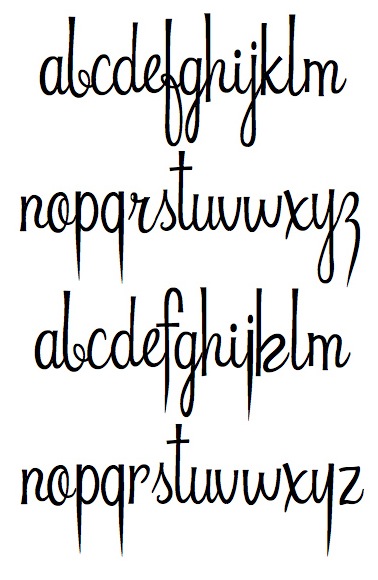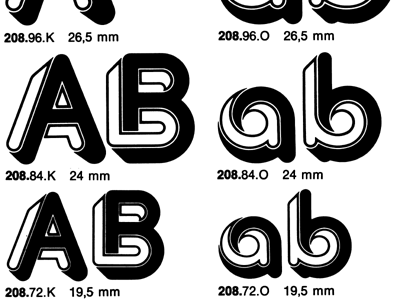
Type designers
Dries 007
Belgian creator of the free counterless constructivist typeface Semi-Russian (2012). [Google] [More]  ⦿
Miloš Ćirić
Serbian book illustrator, graphic arts teacher and phototype, woodtype and linocut letter type designer, b. Despotovo, 1931, d. Belgrade, 1999. His sons Rastko and Vukan write about both aspects of his life. His CV: he graduated in 1954 from the Academy of Applied Arts, Belgrade and took his Masters Degree in 1959, under Professor Mihailo S. Petrov. He was professor at the Faculty of Applied Arts, University of Arts, Belgrade from 1964 until 1997. He was Head of the Graphic Department from 1974 to 1975. His publications include Graphic identification 1961-1981 (SKZ, Belgrade, 1982), Graphic communications 1954-1984 (Vajat, Belgrade, 1986), Heraldry 1 (University of Arts, Belgrade, 1983) and Coat-of-Arms of Belgrade, Heraldry 2 (Cicero, Belgrade, 1991). Most of Ćirić's types were for Cyrillic, while some have Latin alphabets as well. Many would be classified today as poster types, type to accompany illustrations. The list of his faces:
• Rastko, Latin, 1955: It is a versal typeface made in only one weight. Rastko himself thinks it was devised as light, almost linear and it was a part of his character.
• Vukan, Latin, 1960: Named after his second son, Vukan, this is a sharply cut orthogonal typeface.
• Galerija Grafiki kolektiv, Cyrillic, 1962 (Graphic Collective Gallery): A beautiful Cyrillic display face. This was the first of his typefaces transformed in a computer font.
• Triptihon, Cyrillic, 1962 (Triptych): Another cut face, but this time really taken from the sample made in linocut. The prototypical cyrillic poster face.
• Akademija, Cyrillic, 1966 (Academy): This face was made for the University and Academy where he worked. It was designed so that it can be used equally well on the paper, metal plates, seals, plaques and everything else Academy needed. He used similar faces on book covers and charters, in solemn situations. Rastko: Although one may think it is an ordinary serif face, it contains Cira's specific typographic handwriting. The shapes are almost geometrically reduced thus providing a decorative effect, legibility and possibility to be transferred in all materials..
• Bolsko, Latin, 1966/67/68: Bol is a small place on the island Brač. This simple condensed headline face was designed for pedagogical purposes made to be used for lectures at the Faculty of Applied Arts abd in its graphic identity.
• Devojačko, Cyrillic, Latin, 1969 (Maiden): A curly affectionate face.
• Ćirićica, Cyrillic, 1970/72: This face was designed as a result of the first research on transforming Serbian handwritten Cyrillic into constructive letterforms. The raw model was the manuscript of the Fourth Gospel (John's Gospel) written at time of Despot Djurdje Barnković (1428) created then by by a Inok from Dalša. The result was a letterform of optimal proportions. The study was made on the occasion of the opening of the new building of the National Library, Republic of Serbia.
• Vojničko, Cyrillic, 1975 (Soldiers): When designing this face Ćirić consulted the book Blue Line of Life (Plava linija života) by Branko V. Radičević, a book about monuments and tombstones posted along roads. It is a sentimental ornamental headline face.
• Face VMA, Latin, 1976/77: A big project for the Military Medical Academy (abbreviated VMA) in which the letters had to be constructed on grids using rulers and compass only. The result is a Bank Gothic look.
• Bogradsko, Cyrillic, Latin, 1982: This face was used for designing the covers and title of his second book of graphic communications.
• Duklja, Cyrillic, Latin, 1984: In this case the typeface makes basis of graphic identification. As a model for designing the face of Montenegrin Lexicographic Institute was a text from leader seal of Petar, Prince of Duklja. Ira wrote that he enlarged and systematize the letters from the drawing which was made in time when the seal was in good condition and that he wanted to preserve the freshness of irregularities and that there were several weights in each letter while their height is only optically the same. It seems that save for that irregularity which inspired and provocative vagueness this model could not offer many clear stylistic characteristics. But what ira could read from those forms is the language of their linocuts and cut symbols. Thus his personal style naturally added to all that was missing to finish the face. In compromise between face with serifs and sanserifs in combination of legibility and universal applicability he saw practical solution for many tasks.
• Iva's typeface, Cyrillic and Latin, 1986: Rastko: My brother's daughter, Iva, was the first child that joined our family of applied artists. Ćirić immediately awarded himself with the title of granddad, opened the door of his studio and showed her all those games and toys from the world of the applied and other arts. Apart from the crazy games, obligatory signum and many other things Iva got many picture books which her grandpa made from time to time. The picture books contained poems, drawings, pictures and of, course letters. On one of those picture books entitled Grandpa' Stories I have found, so far, the only place where the face was used. It is a type of face imitating relief forms.
• Vukov bukvar, Cyrillic, 1987 (Vuk's Abecedary): One of the rare faces with lower case letters, this typeface is dignified and named after Vuk Kardžić.
• Sava's face, Cyrillic, 1987: A gorgeous old slavonic style face with upper and lower case.
• Epitaf, Cyrillic (Epitaph, my name, unknown year): An unpublished face found by his sons in the files. Ćirić used it to write names of births and deaths of friends and family members in a notebook. It could be seen as a prototype for tombstones.
• Peno (2009), done in a class of Peter Verheul.
• A stone chisel/biline/paper cut experimental family Vampyr.
Werner Affolter
Werner Affolter ran a phototype and printing company in Basel, Switzerland, called Affolter und Gschwind AG, Fotosatz&Reprotechnik. In 1981, Affolter published an extensive catalog entitled Letterama that showed over one thousand alphabets. Few of those were original, so I suspect he acted as a vendor of sorts, but at least a couple seemed original, or were claimed to be original or exclusive: Guigoz, Moby Dick.